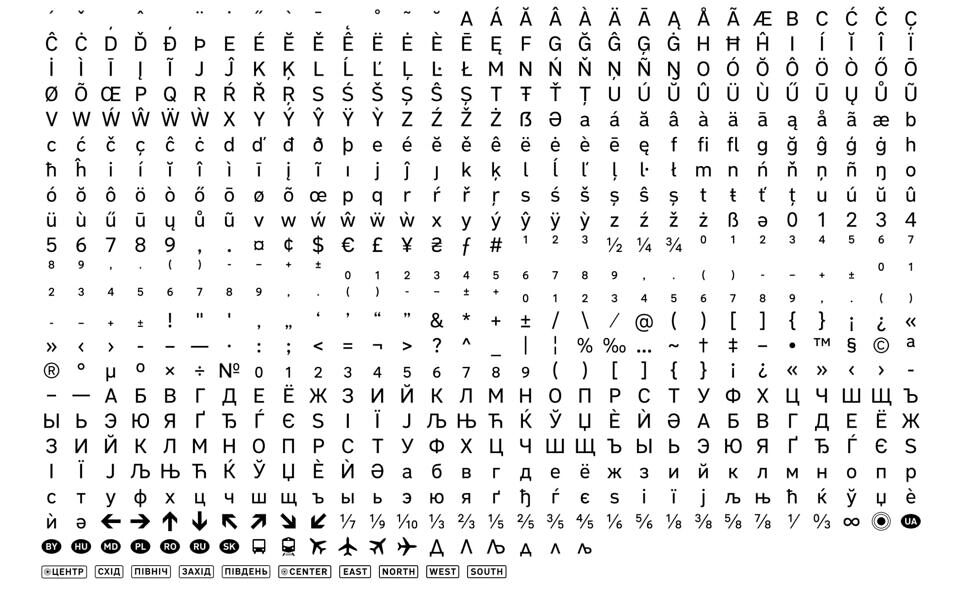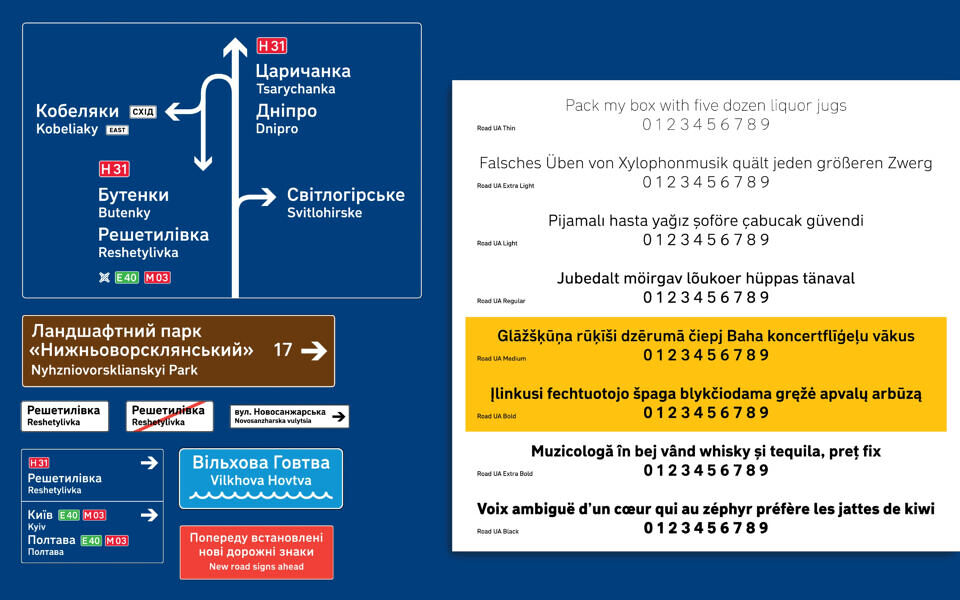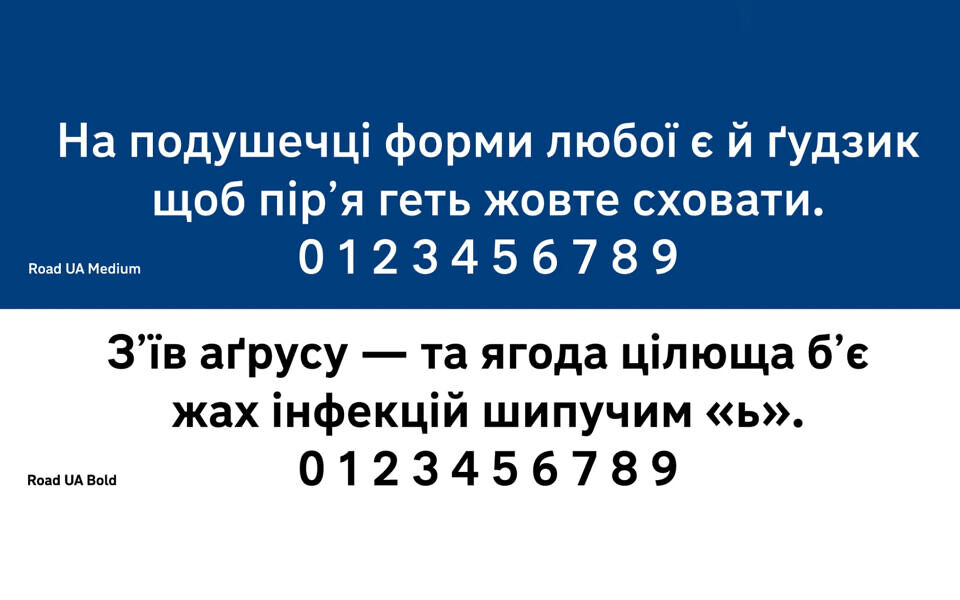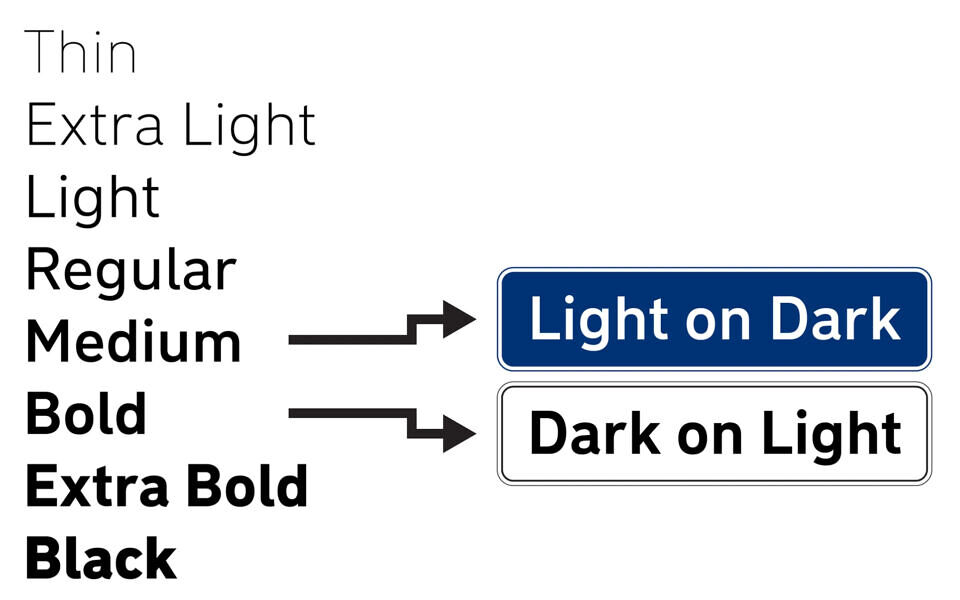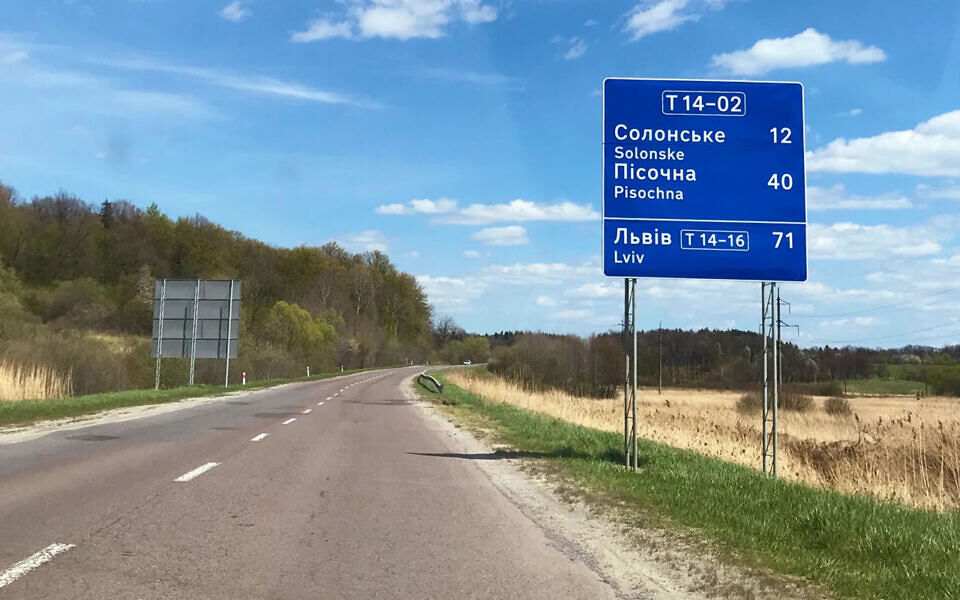
Road UA Font Family
Road UA is a typeface developed to replace the old ГОСТ 10807-78 in the road signage of Ukraine. Unlike its predecessor which implied primary typesetting in all capitals, it was designed “lowercase first”. Two different weights, Medium and Bold, are now used for light-on-dark and dark-on-light signs respectively.
Although only two weights are intended to use in the traffic signage, there is a total of 8 weights available. The typeface is free to download and use under CC BY-ND 4.0 license.
Designed by: Andriy Konstantynov